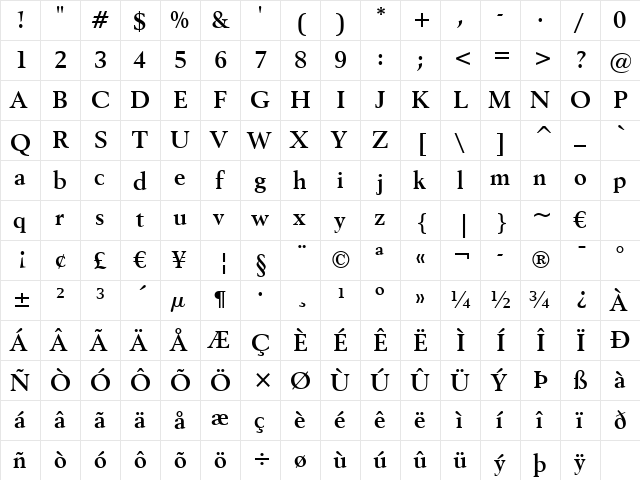
Revival565 BT Bold
Design Context for Revival565 BT Typeface
Revival565 BT is a composed and adaptable typeface that performs quietly and consistently across a wide range of design contexts. Its bold stroke weight gives it real presence on the page.